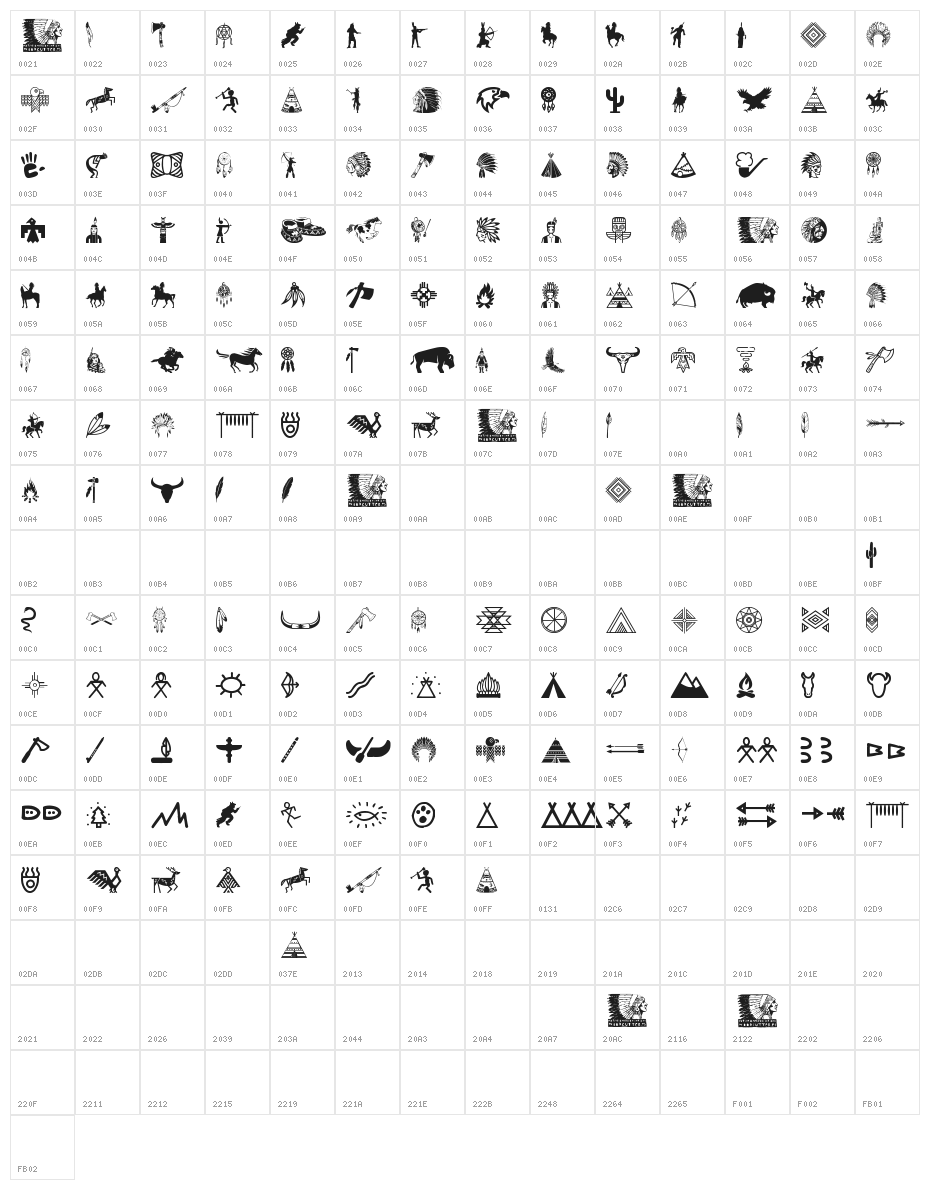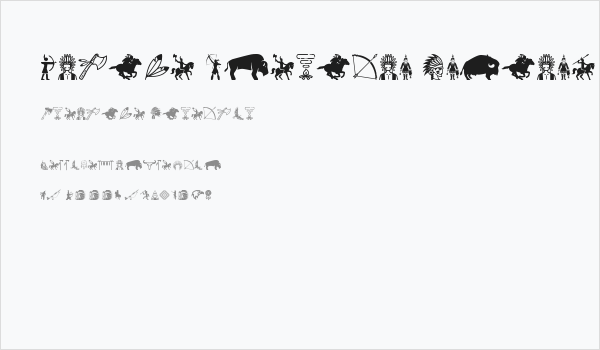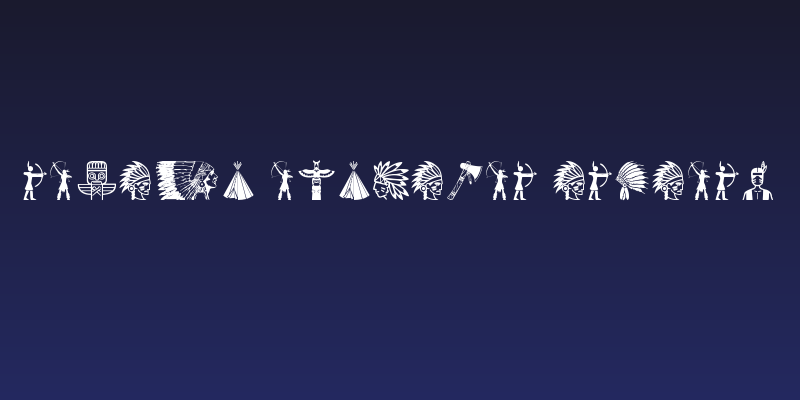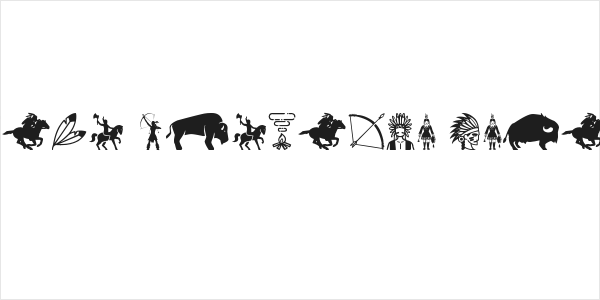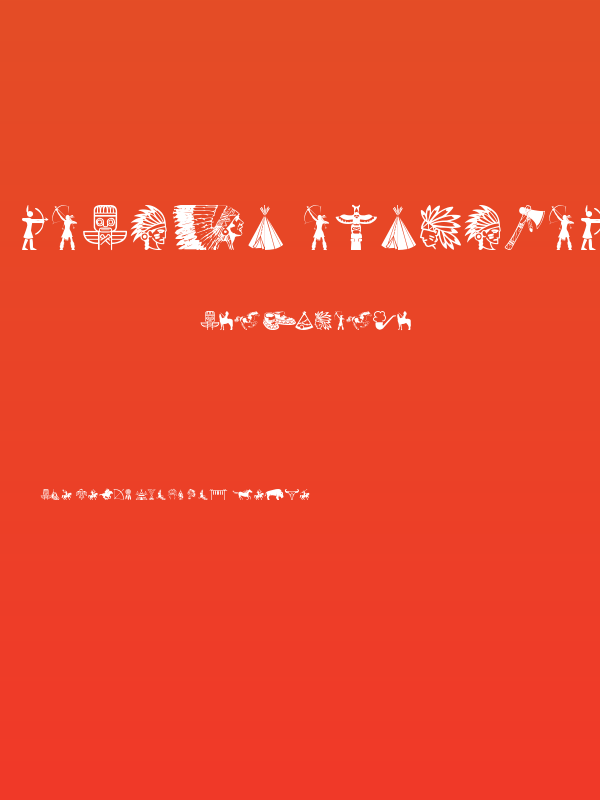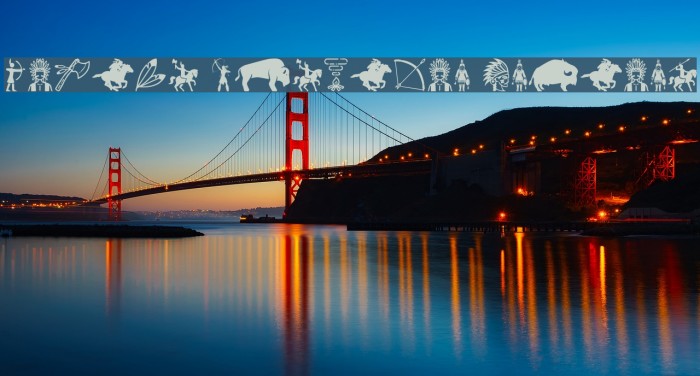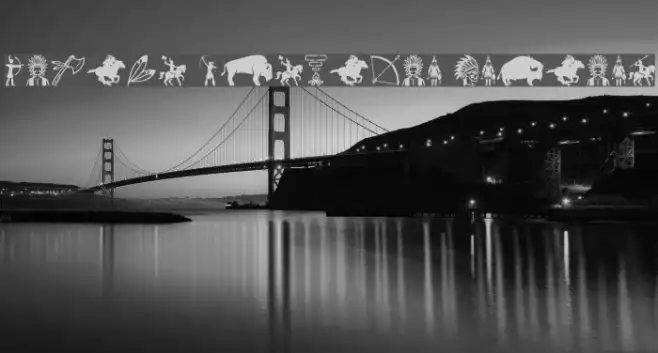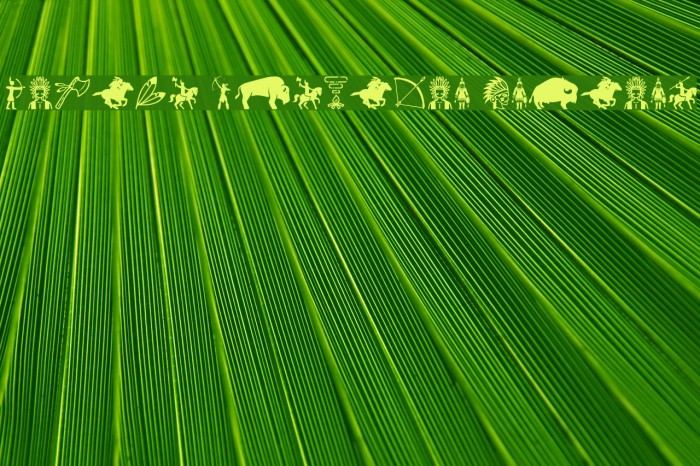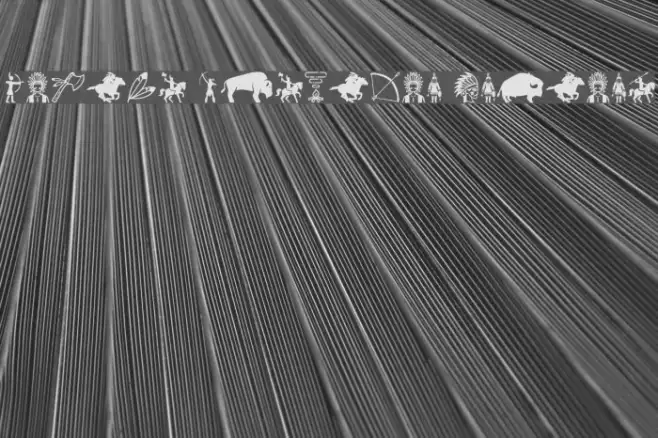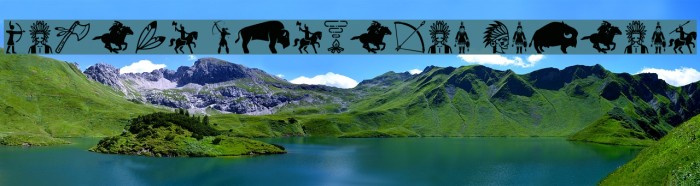
Native American Indians Font
Native American Indians Description
A decorative display set featuring Native American-inspired pictograms and symbols, including headdresses, animals, tipis, arrows, dreamcatchers, and figures in silhouette. The glyphs are bold, highly stylized, and rendered in solid black with minimal internal detail, emphasizing iconic shapes and cultural motifs.
| Overall Style | Decorative, Thematic, Iconic |
| Use Case | Logos, Posters, Themed Graphics, Educational Illustrations |
| Proposed Projects | Posters, educational materials, themed event graphics, branding for cultural exhibits, decorative signage. |